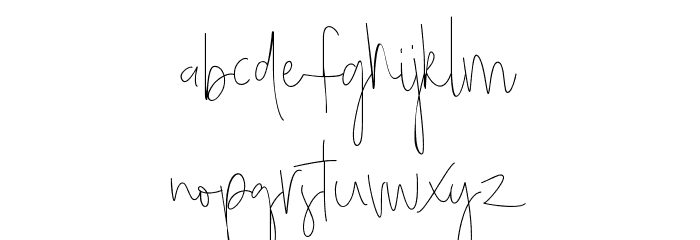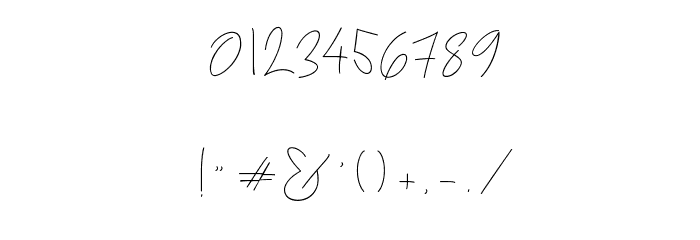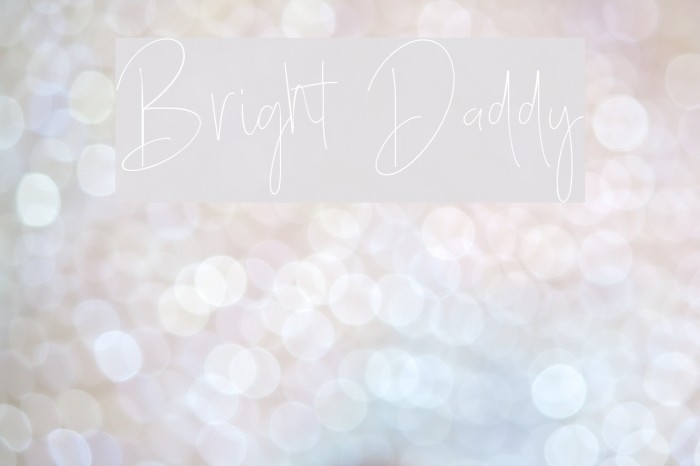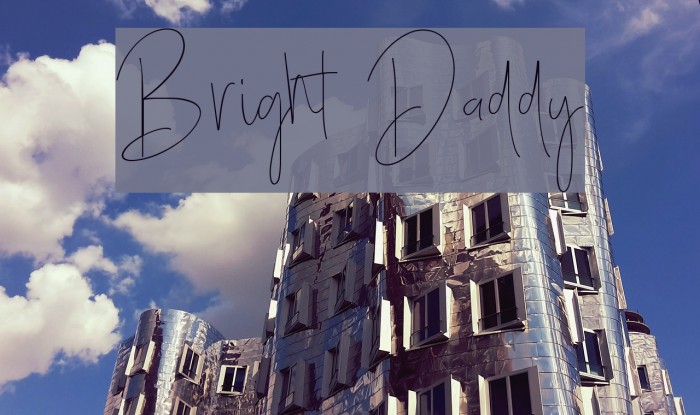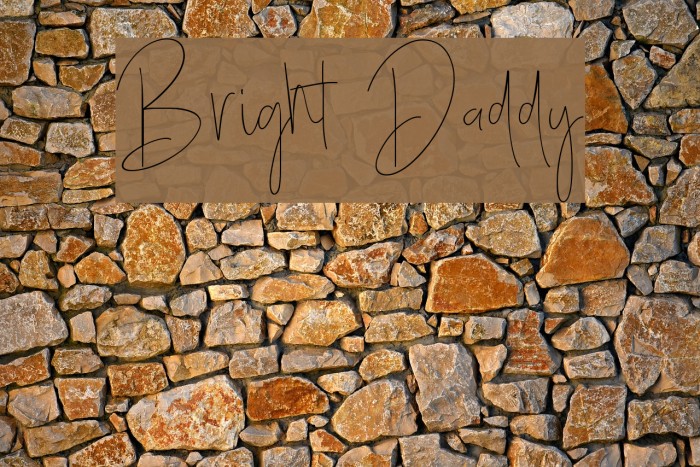
Bright Daddy Font
This font features a whimsical and flowing handwritten style, characterized by its thin, elegant strokes and playful curves. The uppercase letters are tall and slightly elongated, giving a sense of sophistication and grace. The lowercase letters maintain a consistent flow, with some characters extending below the baseline, adding to the font's dynamic appearance. Numbers and special characters are crafted with the same attention to detail, ensuring a cohesive look across all elements. The overall design exudes a sense of creativity and lightness, making it suitable for projects that require a personal and artistic touch.
A whimsical, flowing handwritten font with elegant, thin strokes.
- Font: Bright Daddy
- Proposed Projects: Ideal for wedding invitations, greeting cards, personal branding, and artistic projects.
- Category: Handwritten
- Weight: Light
- Use Case: Logos, Headlines, Artistic projects